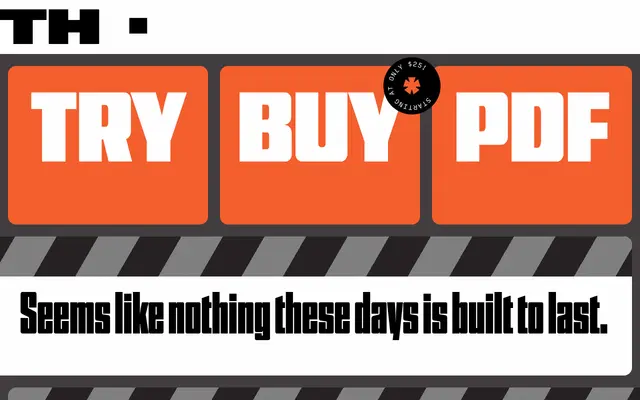
Nickel Gothic
A blocky, squared display sans derived from lettering on a 1918 Chinese banknote, spanning Compressed to Wide with oblique and backslant variants across a variable axis.
Designed by David Jonathan Ross with additional drawing by Bea Korsh, the typeface takes its structural cue from century-old banknote lettering while carrying overtones of mid-century squared sans serifs like Eurostile and 1970s gothics like Serpentine. Its defining quirk is flat tops and bottoms rather than the flat sides common in condensed sans serifs, with weighted interior corners that give each letterform a planted, immovable quality. Fourteen static styles run from Compressed to Wide with oblique cuts throughout, backed by a variable font with Width and Slant axes and support for Latin, Cyrillic and Greek.
A squarish, blocky display sans with flat tops and bottoms and stadium-like interiors, drawing on squared gothic and mid-century sans traditions; classified as display due to its high-impact, headline-oriented construction across a wide axis range.